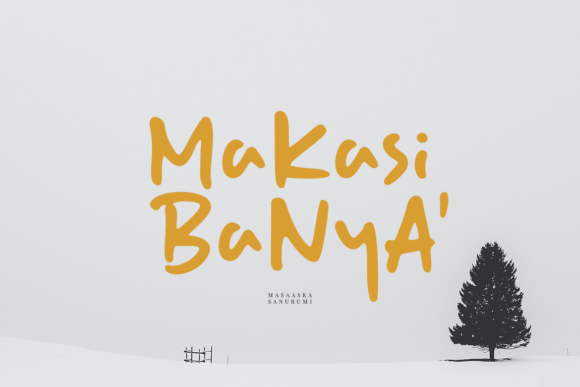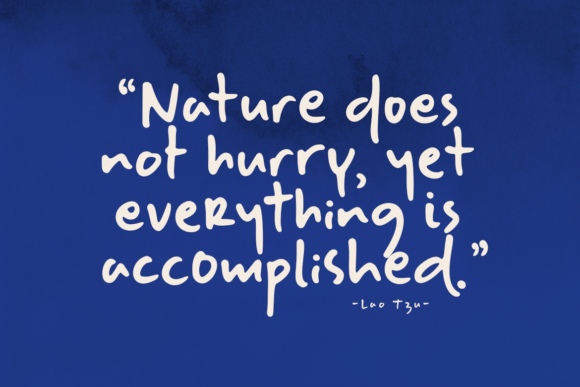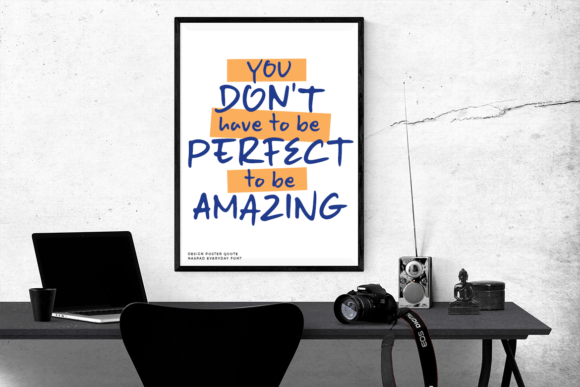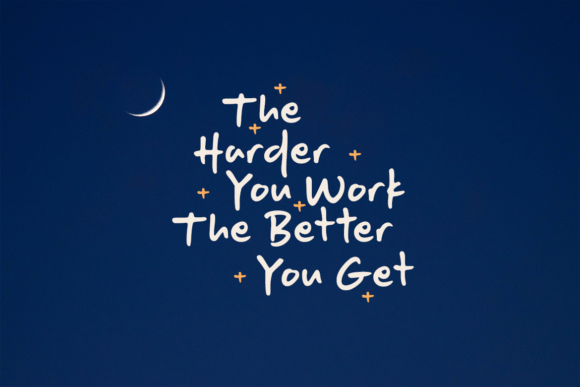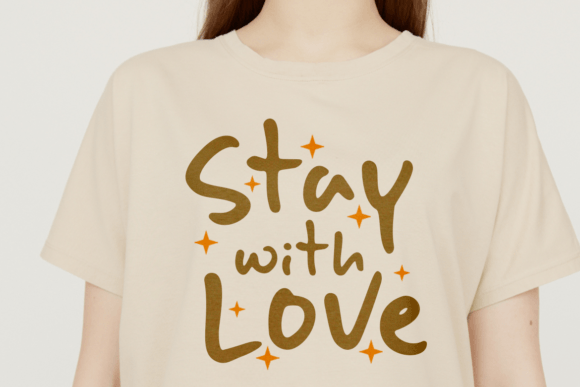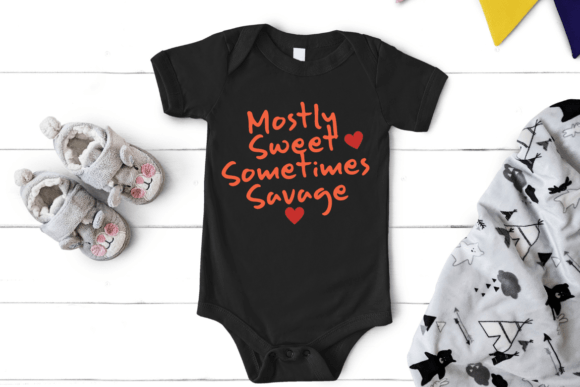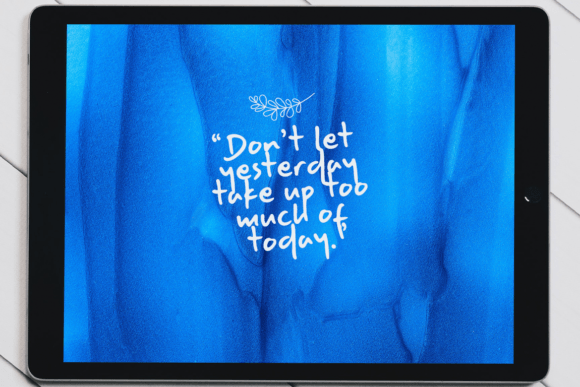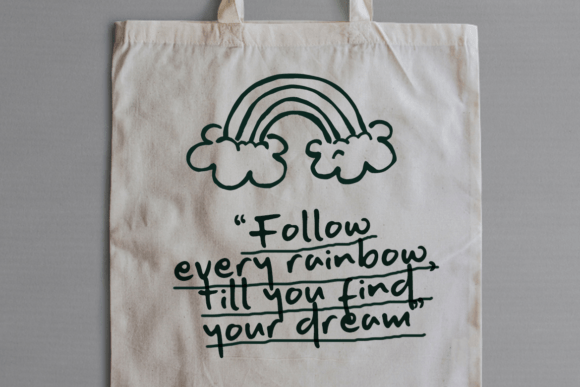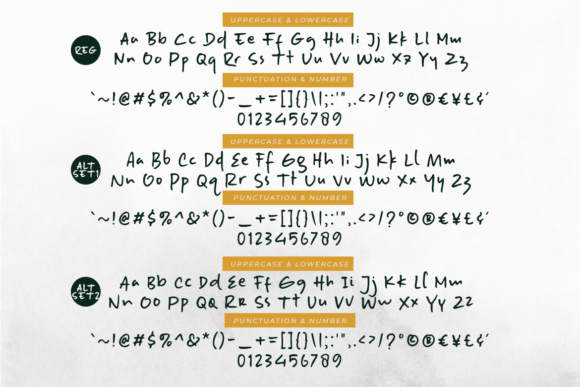
Naspad Everyday Font
About Naspad Everyday Font
Naspad Everyday Font is a stylish and playful handwritten script that adds a fresh, human touch to any project. Its smooth curves and modern design make it a perfect option for a wide variety of creative uses. Whether you’re designing greeting cards, quotes, or headlines, this font brings elegance and fun together in perfect balance.
Elegant and Expressive Handwriting Style
Crafted with care and attention to detail, Naspad Everyday Font blends casual handwriting with professional design aesthetics. It feels friendly yet clean, which makes it ideal for both personal and commercial projects. You can use it for:
Because it adapts so well, it’s a great go-to font when you want charm without sacrificing readability.
Designed for Creative Flexibility
Moreover, its clean stroke weight and legible form make it suitable for both small text and bold headlines, ensuring your message is always clear.
Bring Your Designs to Life
In short, Naspad Everyday Font delivers the perfect blend of style, versatility, and creativity. It’s the kind of typeface that enhances your work, giving it personality and polish. Whether you’re building a brand, making a greeting card, or sharing a heartfelt message, this font helps you do it with flair.